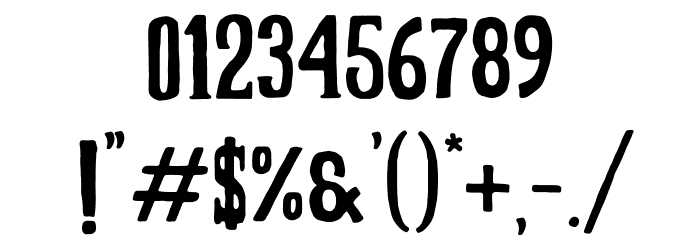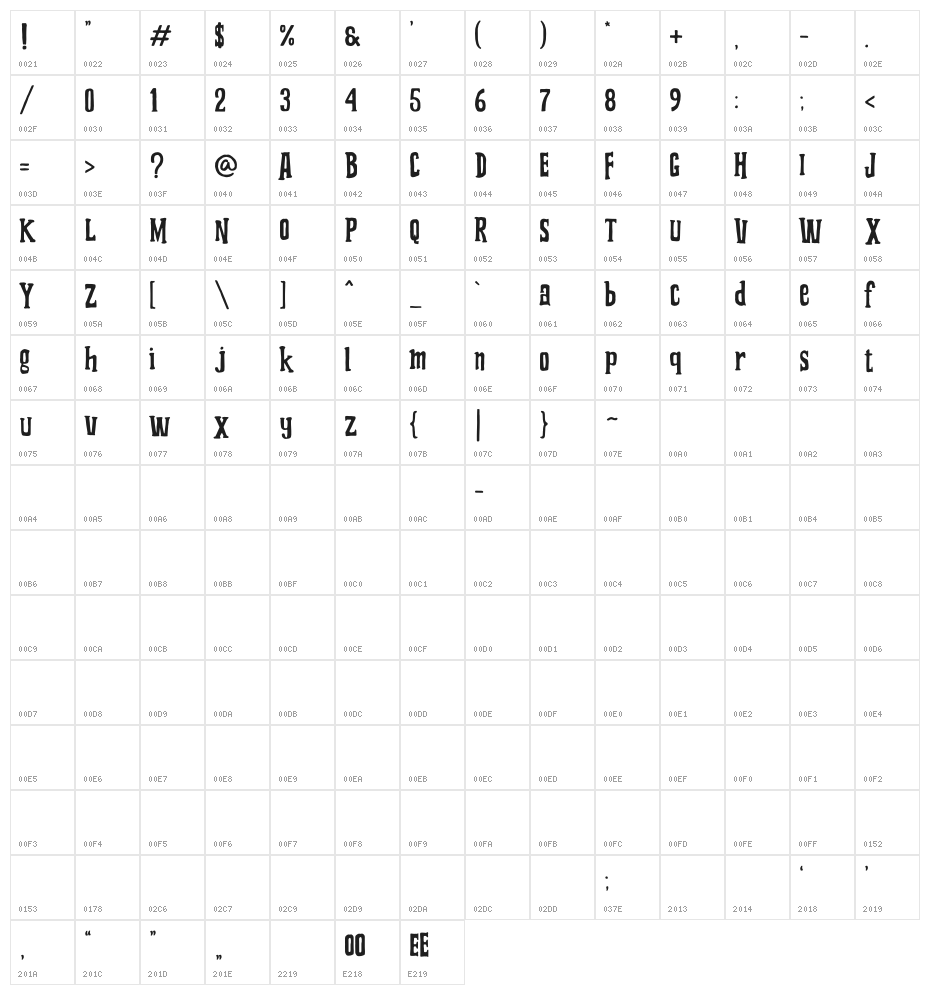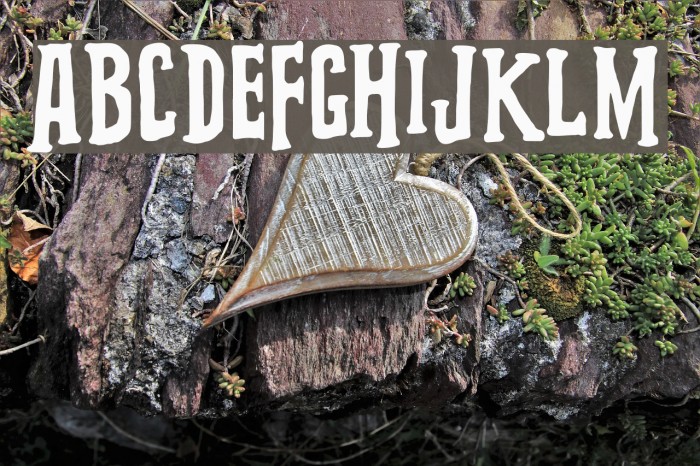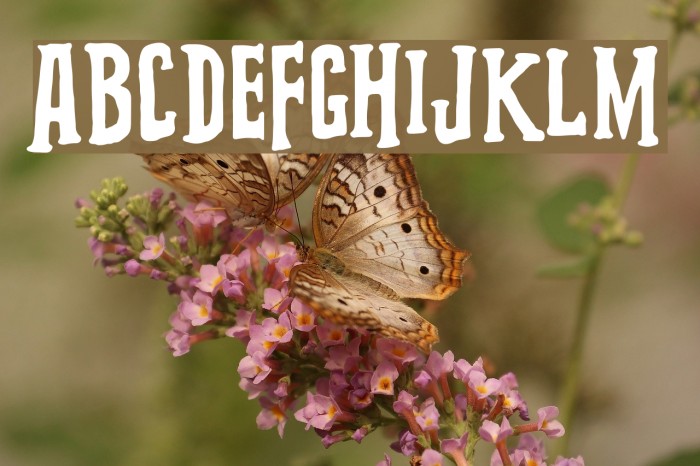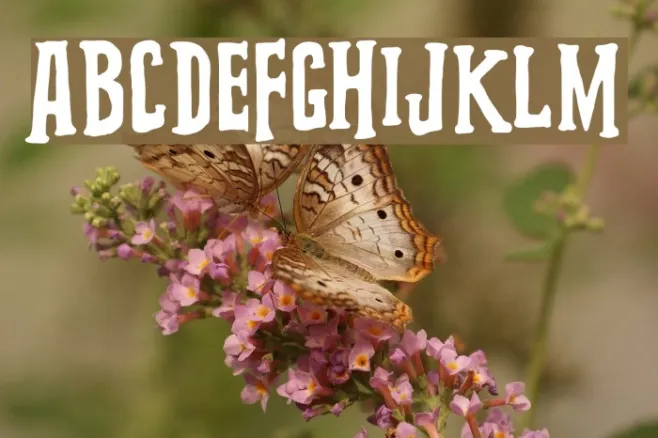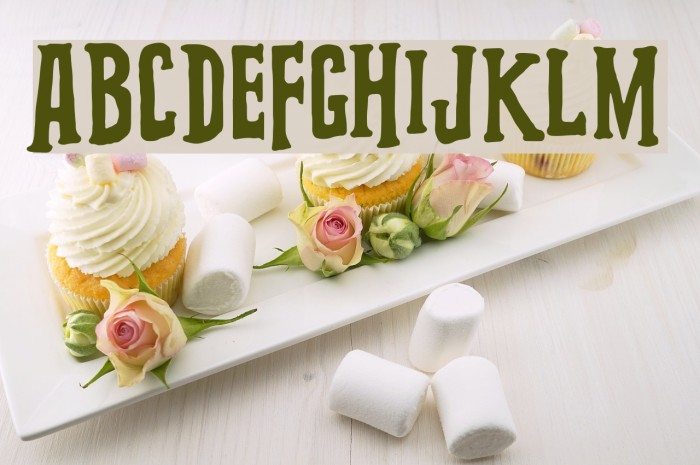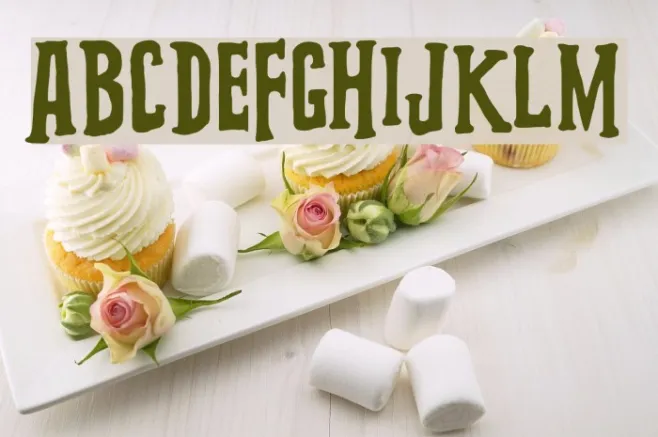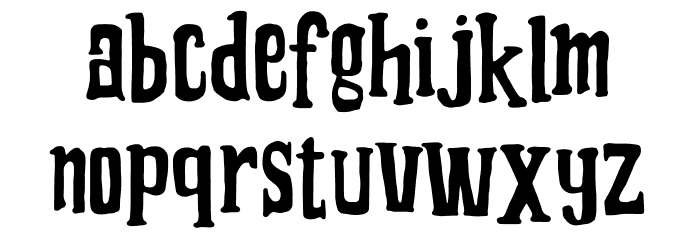
Grooving Font
Grooving Description
This font features a bold and playful design with a slightly irregular and hand-drawn appearance. The characters have a whimsical, almost cartoon-like quality, with thick strokes and a lively, energetic feel. The uppercase letters are robust and commanding, while the lowercase letters maintain a consistent style that complements the uppercase. The numerals and special characters are equally bold, ensuring readability and a cohesive look across all text. This font's unique style makes it stand out, offering a fun and engaging visual experience.
| Overall Style | Playful, Whimsical, Energetic |
| Proposed Projects | Ideal for children's books, playful branding, event posters, and creative projects that require a fun and lively typeface. |